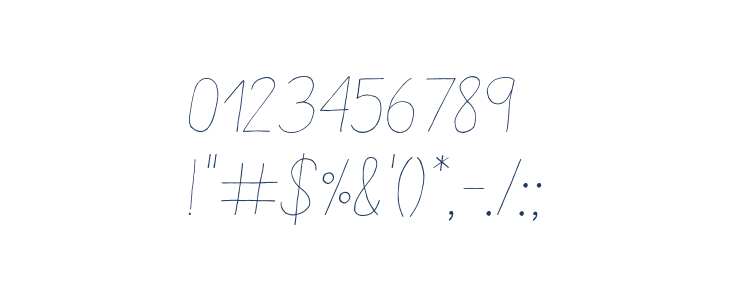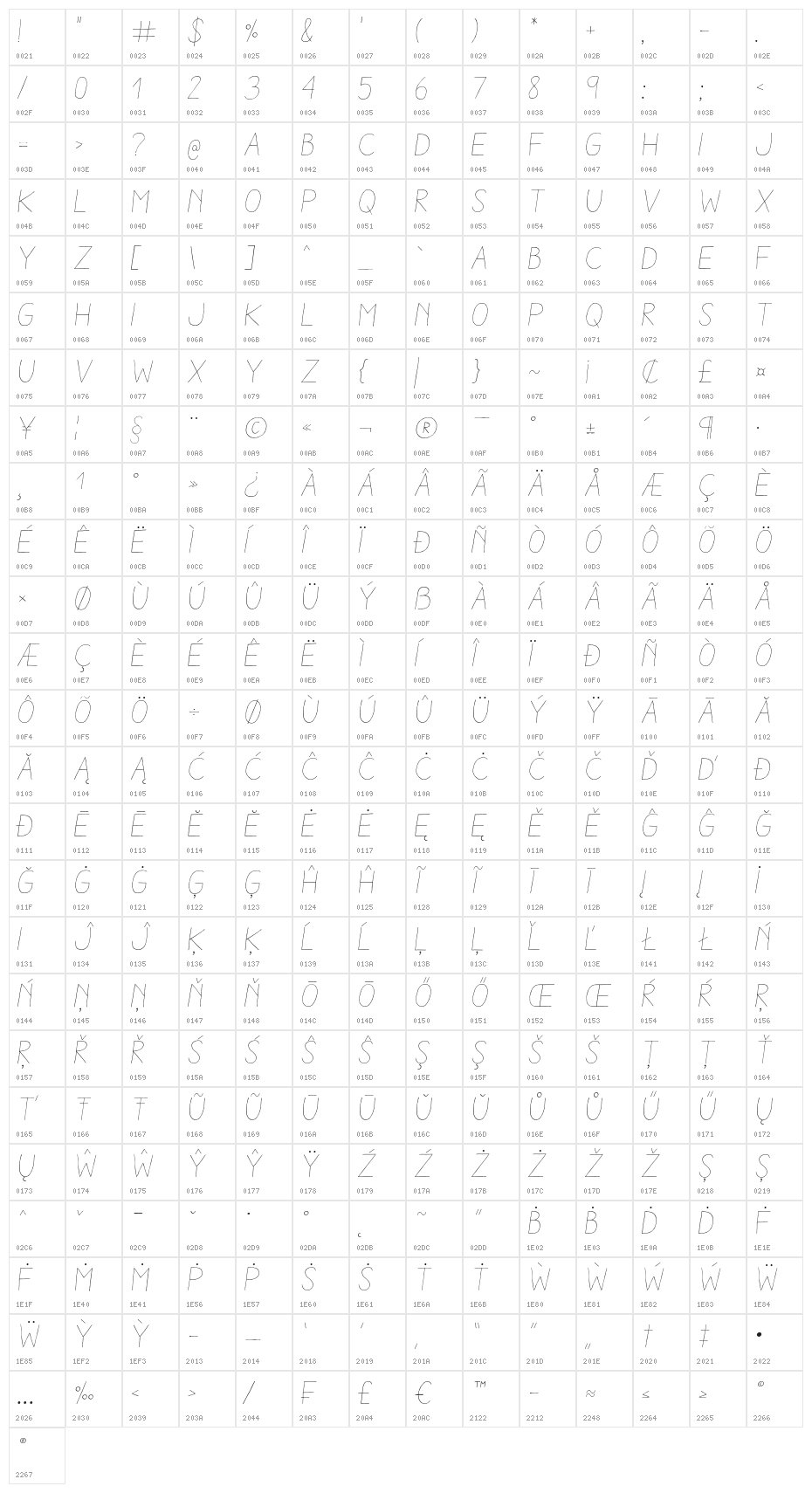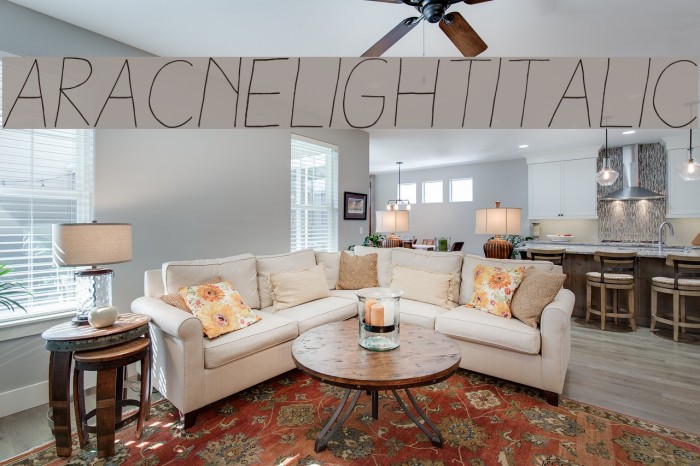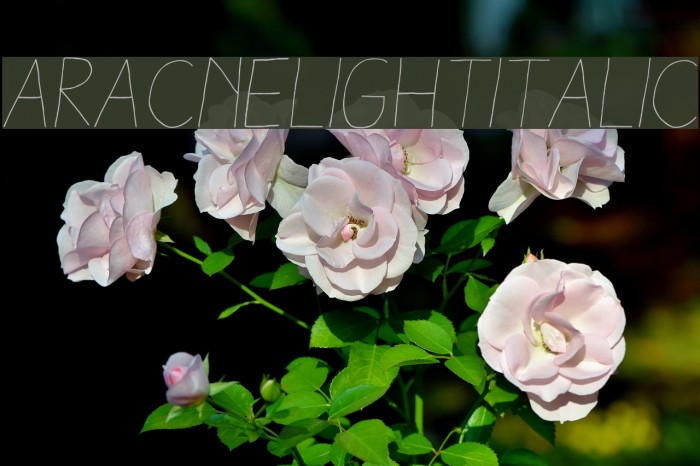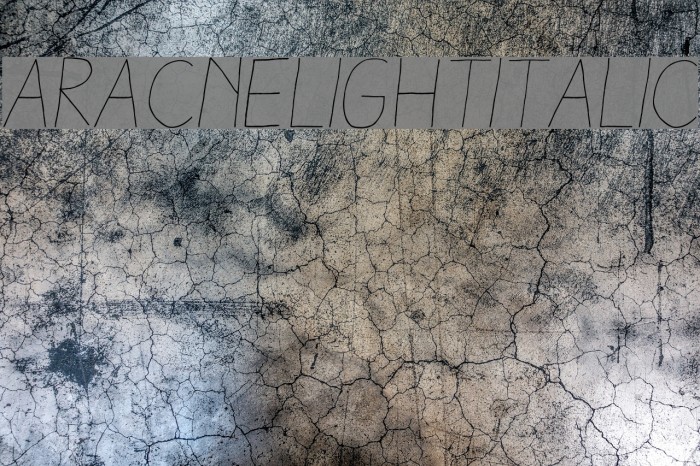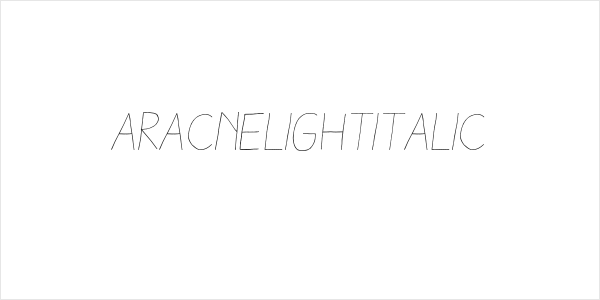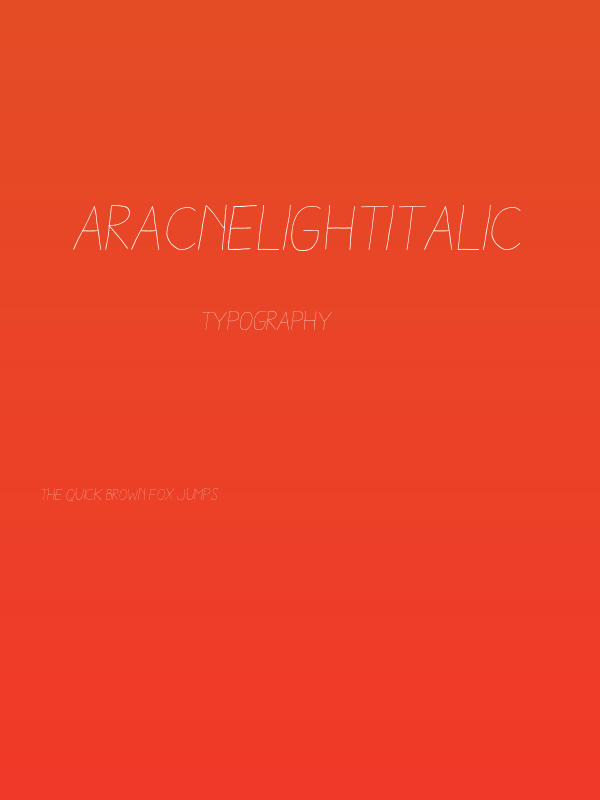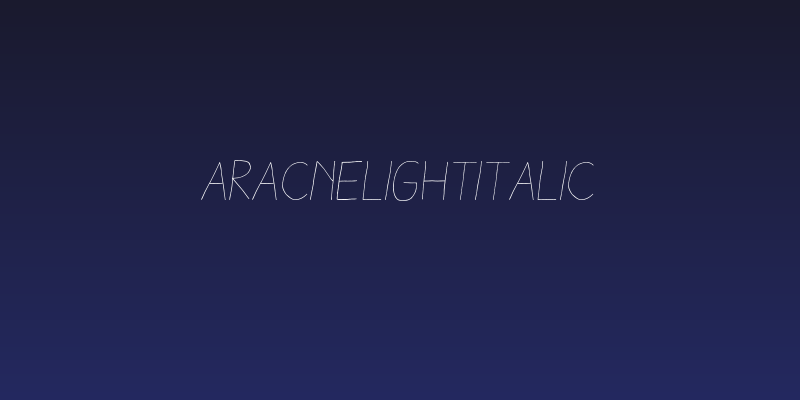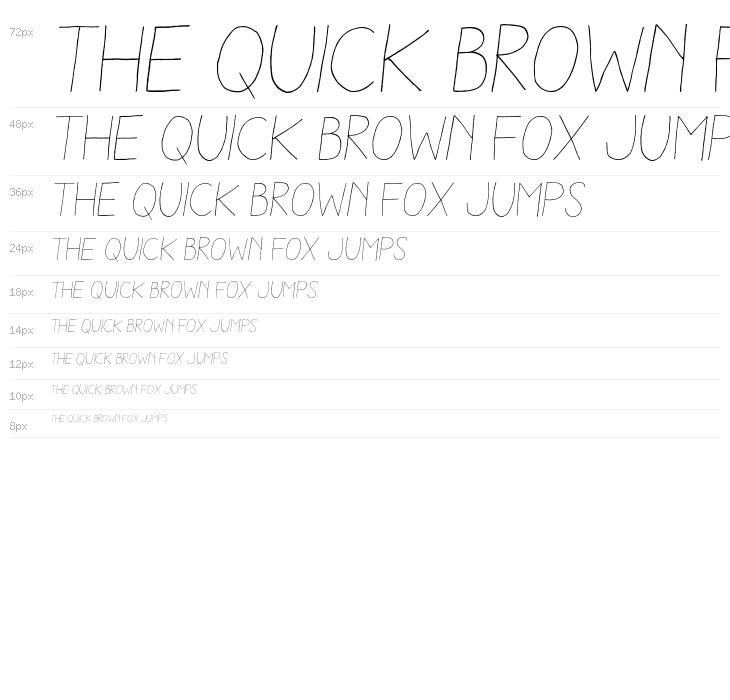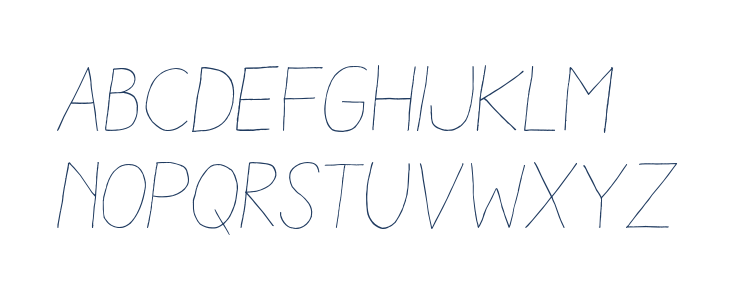
AracneLightItalic Font
AracneLightItalic Description
This font features a delicate and light design with a handwritten style, characterized by thin strokes and a slight slant, giving it an elegant and airy appearance. The characters are crafted with a consistent thinness, creating a sense of cohesion and fluidity. The uppercase and lowercase letters maintain a uniform height, contributing to its modern and minimalist aesthetic. The numerals and special characters are designed with the same thin strokes, ensuring a harmonious look across all elements. This font is ideal for projects that require a touch of sophistication and subtlety.
| Proposed Projects | Ideal for wedding invitations, personal branding, elegant stationery, and minimalist design projects. |